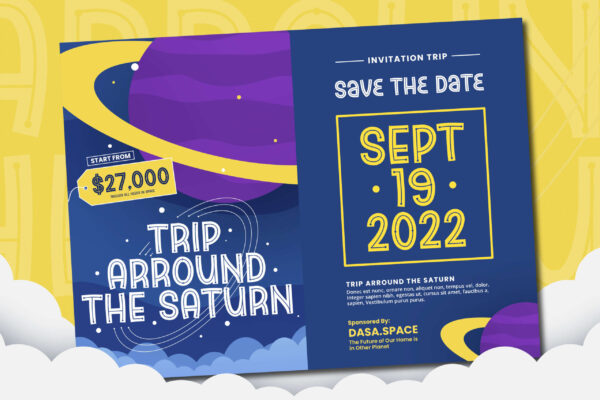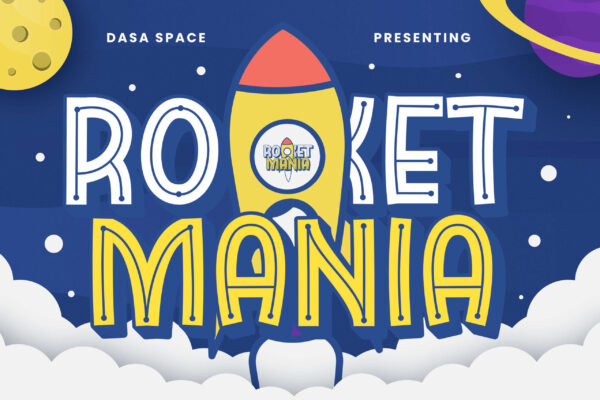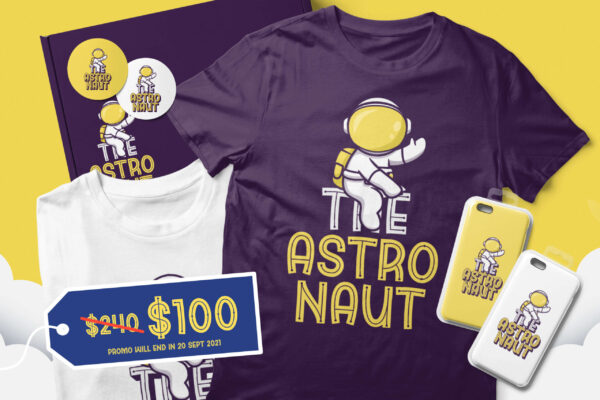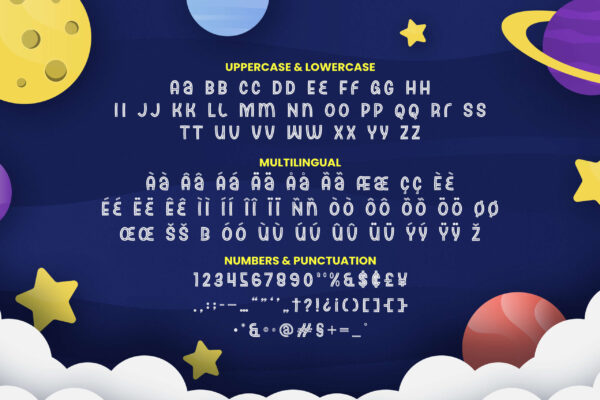
Apolo is a playful and adventurous galaxy-themed display font that brings the charm of outer space into your design projects. With its bold, outlined letters connected by whimsical dots and lines, this typeface feels like a journey through the stars. It evokes curiosity and fun, making it the perfect choice for children’s books, science posters, space-themed branding, or any creative design that seeks to spark imagination.
This font includes uppercase, lowercase, numbers, punctuation, and multilingual characters, giving you versatility across various languages and formats. Whether you’re designing apparel, invitations, packaging, or digital content, Apolo delivers a futuristic yet friendly vibe that instantly grabs attention and sets a cheerful, interstellar tone.